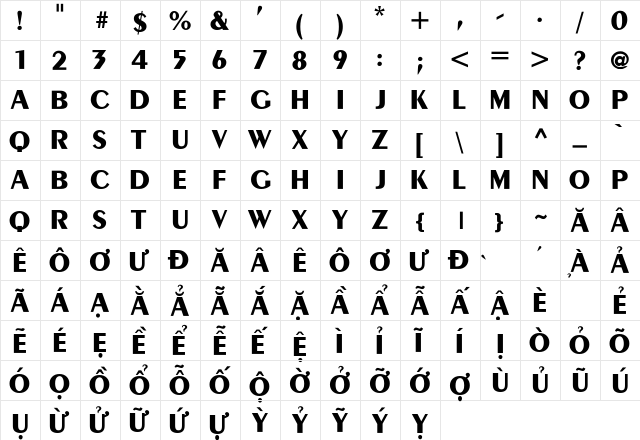
.VnExoticH Normal
.VnExoticH takes a measured approach to typography — its balanced proportions and neutral character make it a reliable workhorse for both digital and print work.